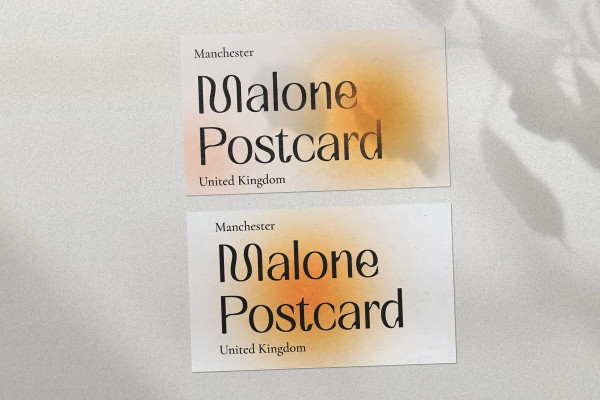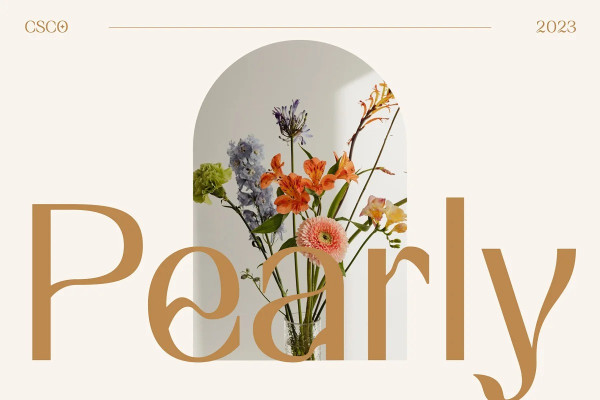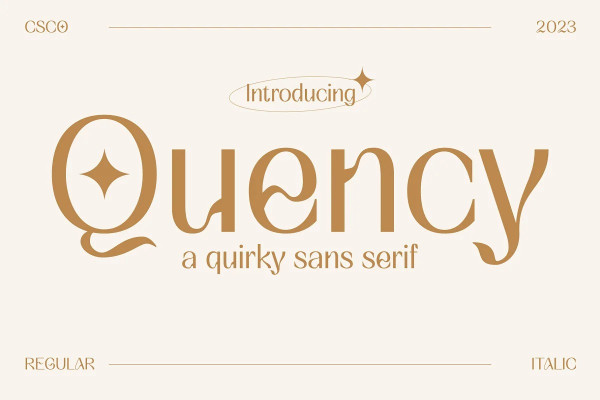
Quency Font
Quency Font, A delightful and quirky sans-serif font that brings a whimsical touch to your designs. With its unconventional lines and playful charm, Quency adds a unique and captivating dimension to any project.
This typeface is ideal for greeting card, packaging, brand identity, poster, or any purpose to make your design project look eye catching and trendy. Feel free to play with this typeface!